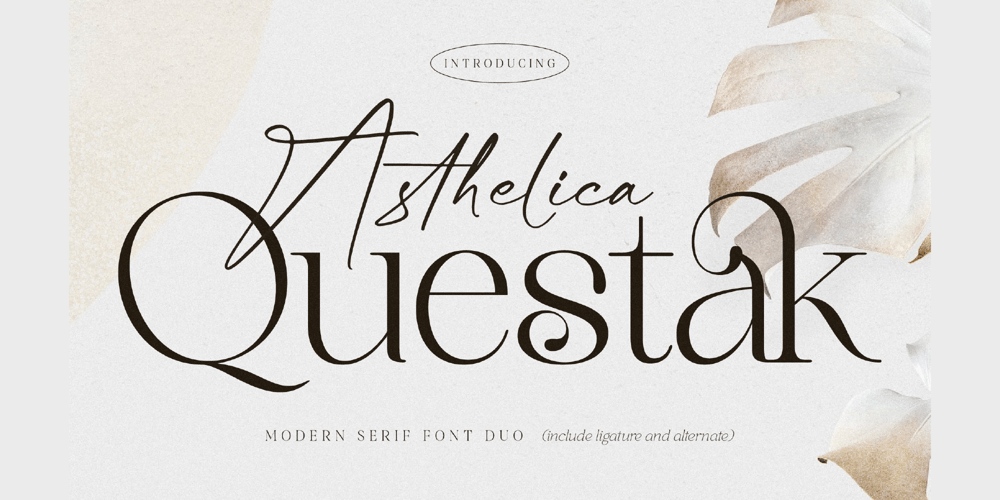
Asthelica Questak Script Font Family was designed by Heru Utama Putra and published by Letterena Studios. Asthelica Questak Script contains 2 styles and family package options. Proudly present Asthelica Questak Font Duo.A serif and script typeface that has its own unique style & modern look.This typeface is perfect for an elegant & luxury logo, book or movie title design, fashion brand, magazine, clothes, lettering, quotes, and so much more.This font is PUA encoded which means you can access all of the amazing glyphs and ligatures with ease!